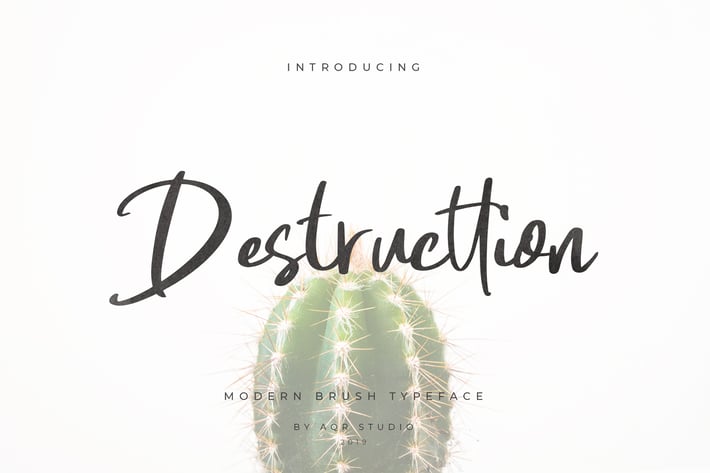
Destructtion Script Font
Destructtion Script Font that contain lowercase, uppercase, symbol, and also support multi language. There’s a lot ligatures in this font. Destructtion Script Font also comes with ligatures, stylistic alternates and many more. this font suitable for fashion, branding, catalog and other design what you want.